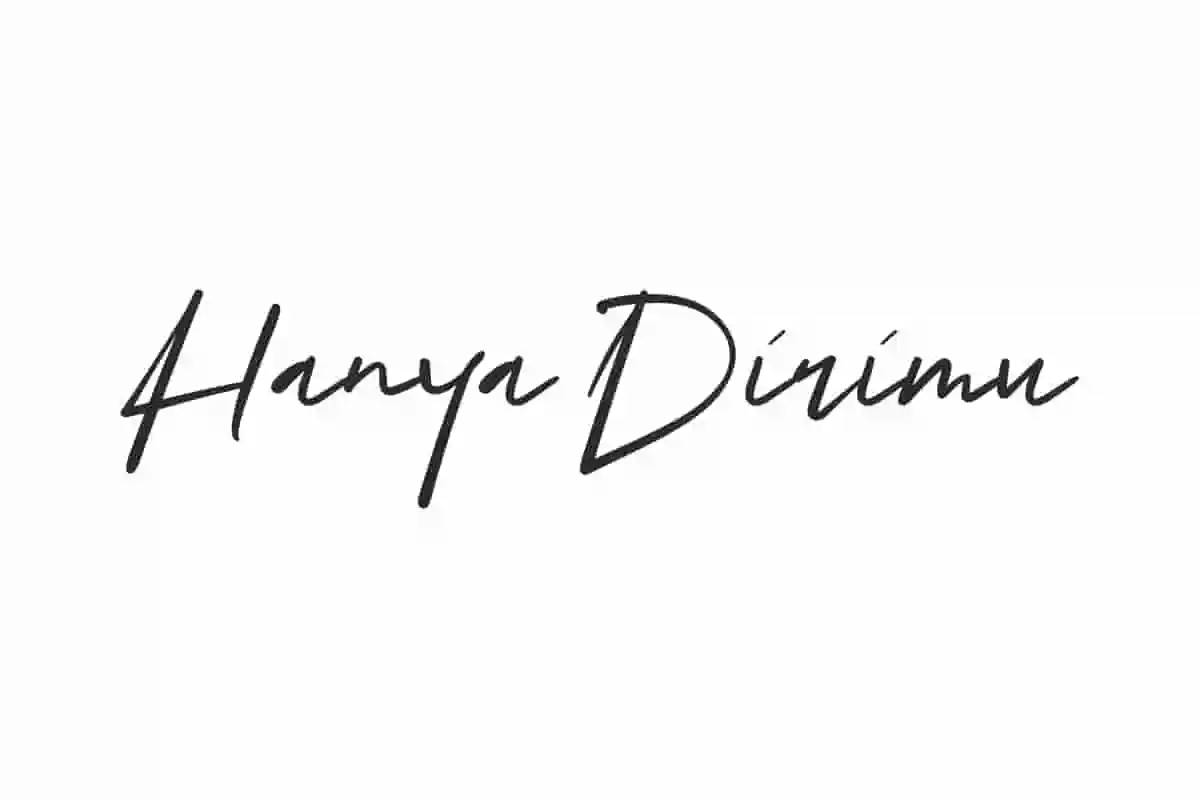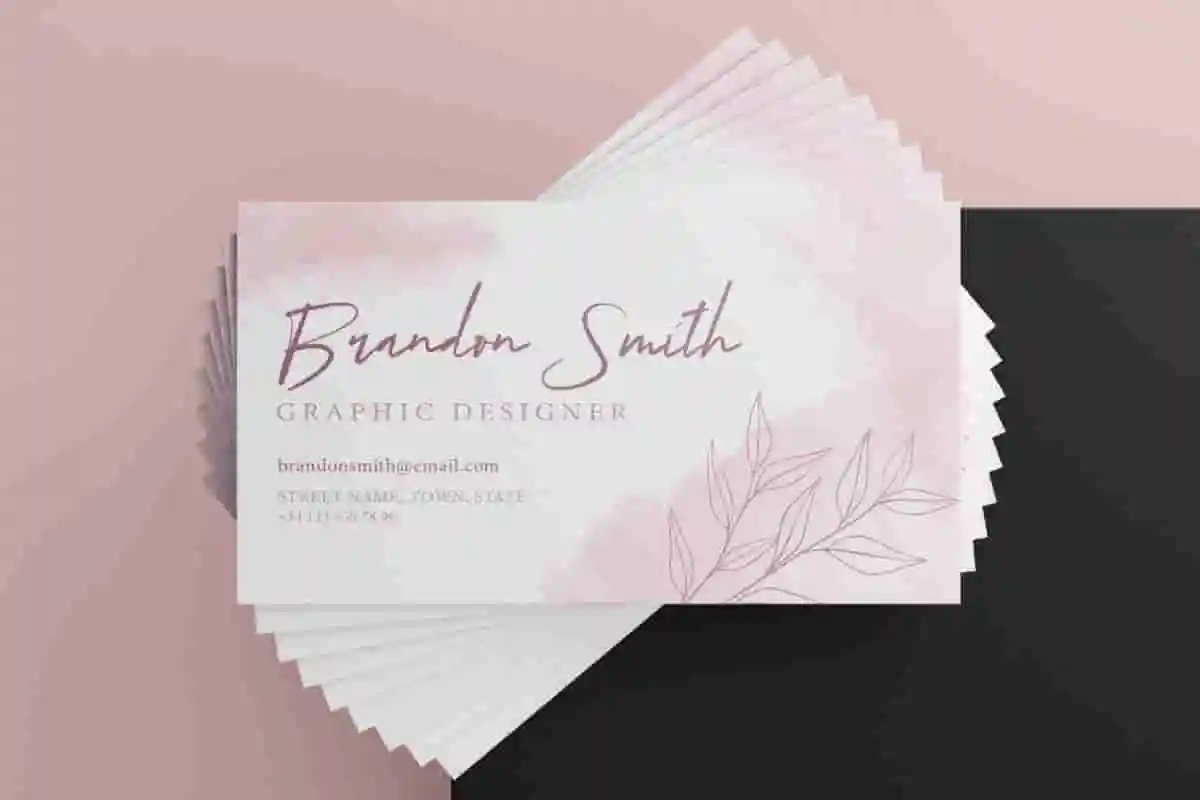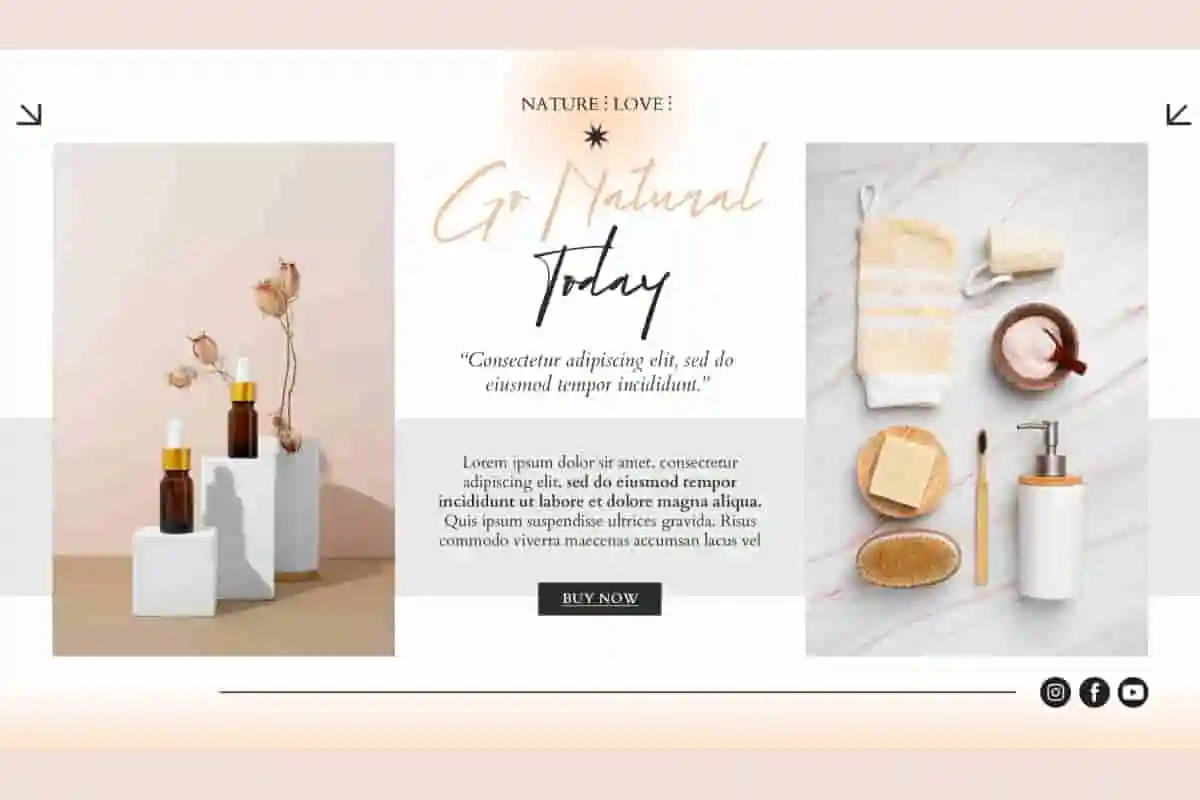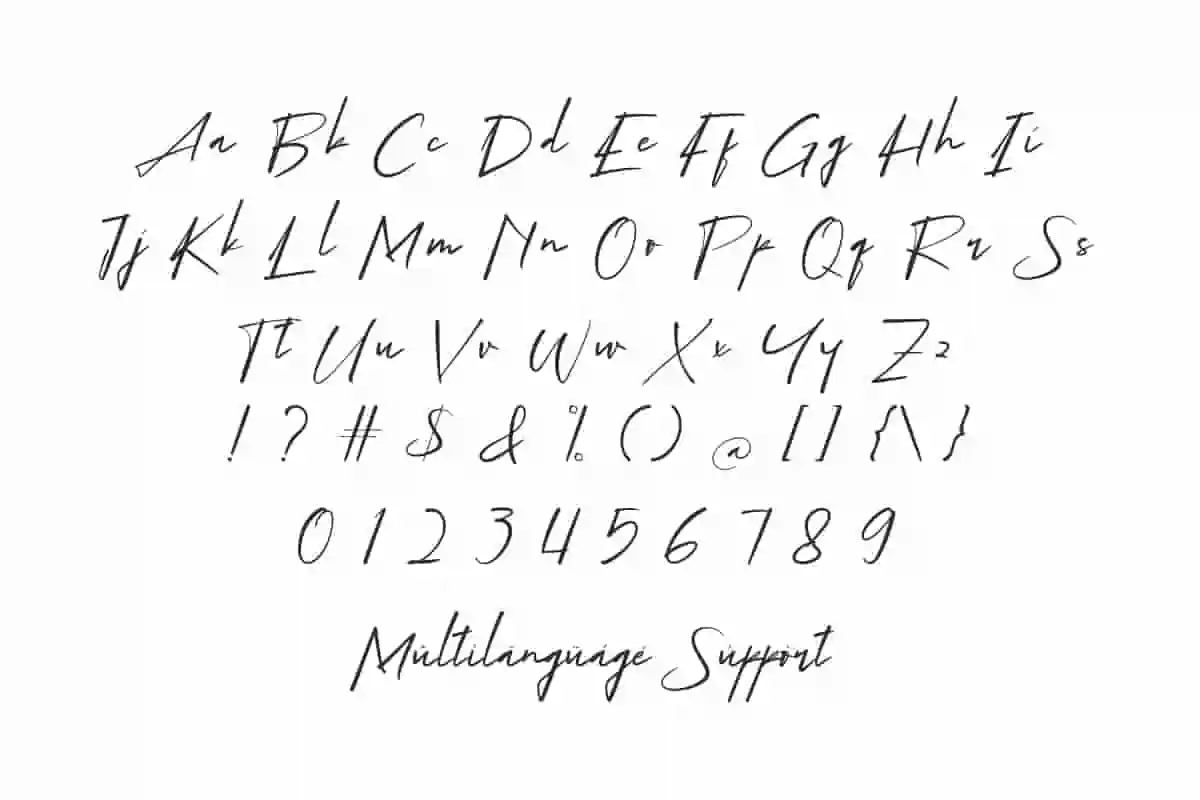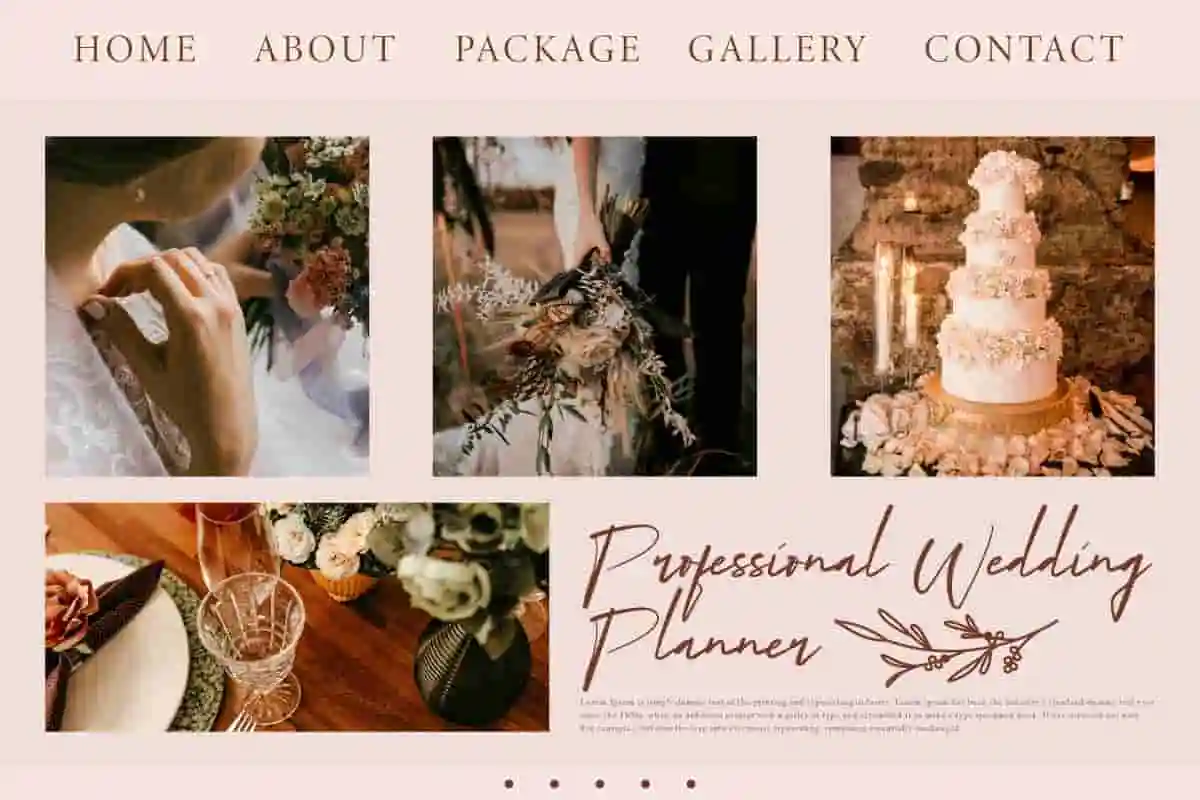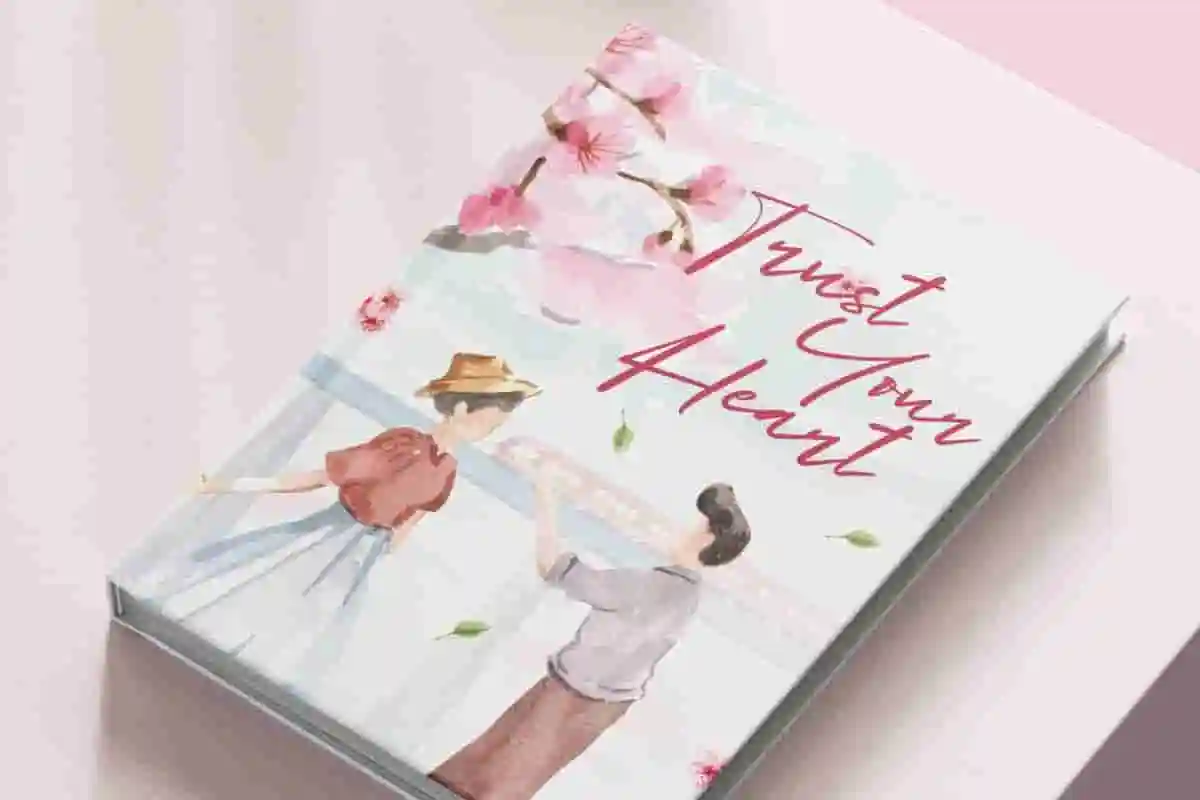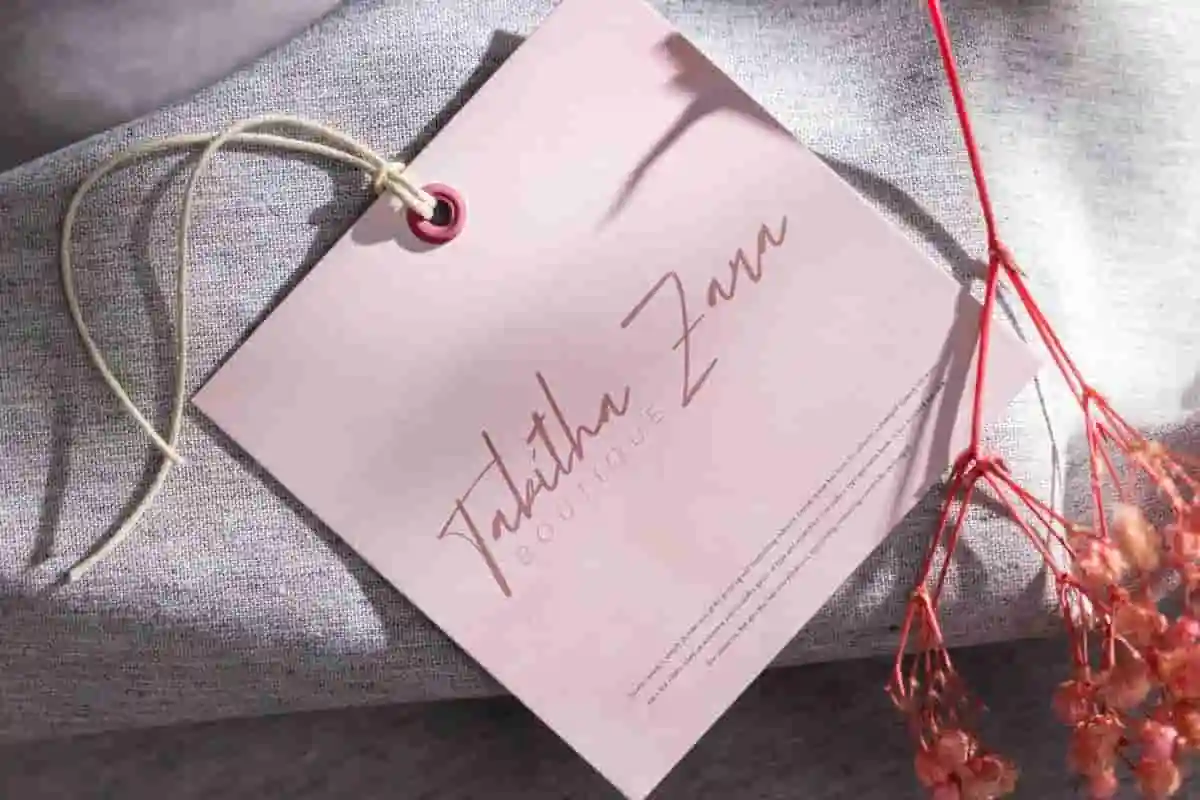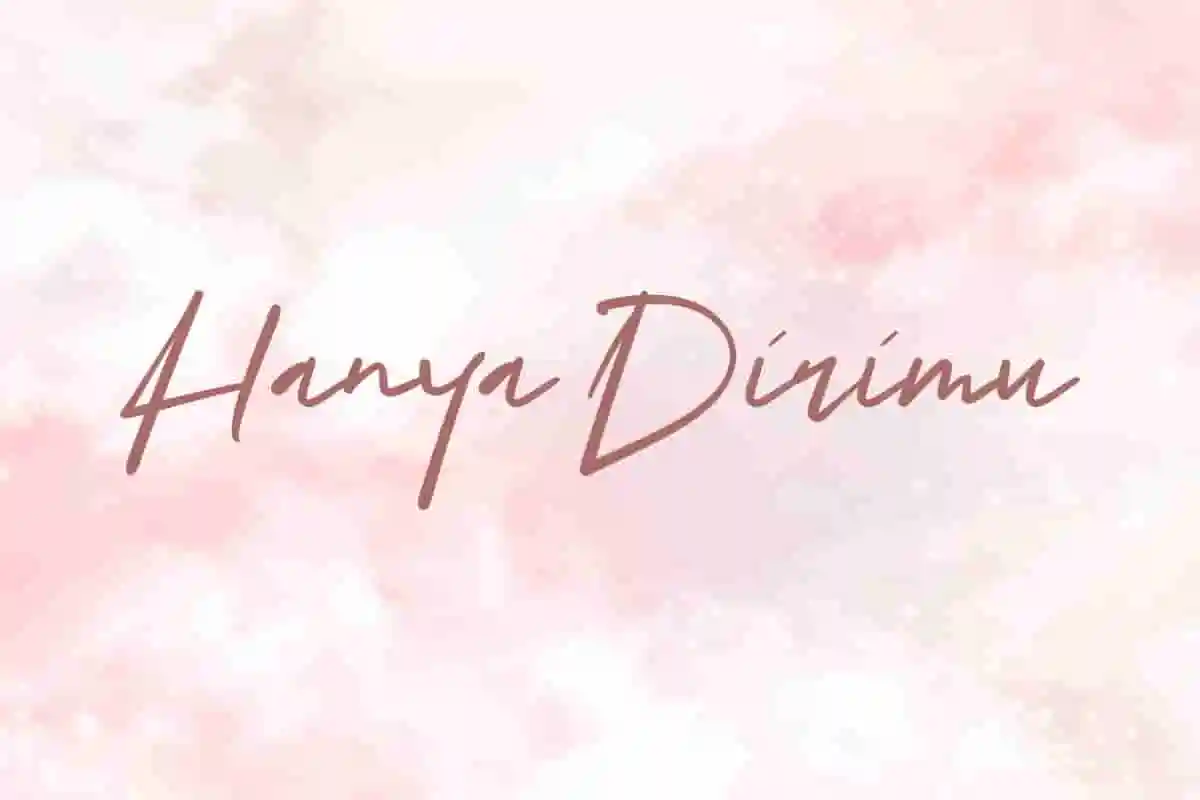
Hanya Dirimu Font is a beautiful and feminine handwritten font with a stunning trendy style, making your design look more attractive. Try this font now!!
Hanya Dirimu Font is a charming handwritten font that is feminine. With smooth edges and beautiful curves making this font stunning and easy to read at the same time. Perfect for any creative design, such as blogs, brand logo, bussiness card, card design, cover, headers, label tag, printing, product packaging, quotes, sticker, template, title, website, and more.
Hanya Dirimu Font includes a complete set of Basic Uppercase and Lowercase Characters, Numbers, Punctuation Marks, and Symbols. This font takes you into a world of timeless elegance and individuality with the charm of a charming handwritten font. Can be used in advertising, beauty clinic, boutique, event organizer, fashion, graphic design, skincare, wedding, writer, etc.